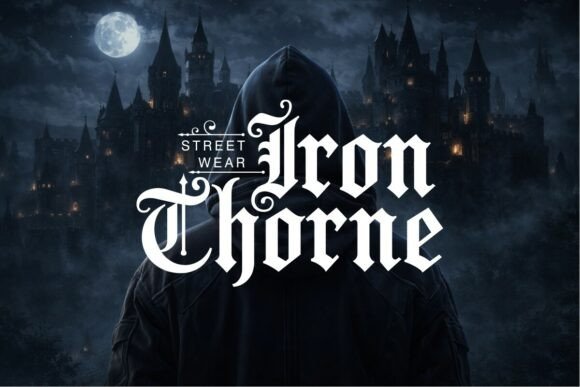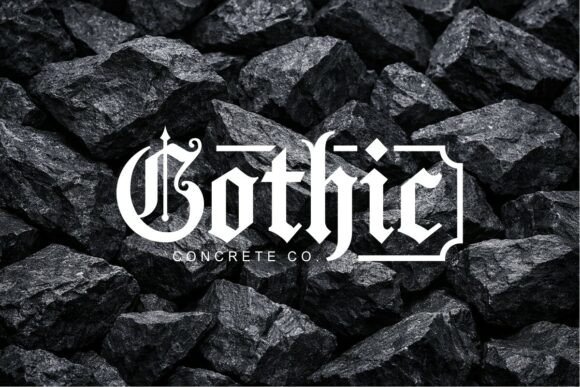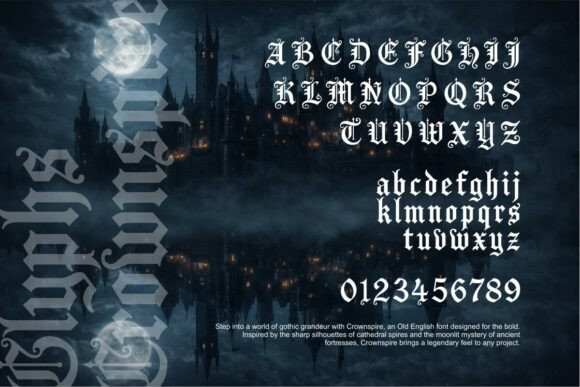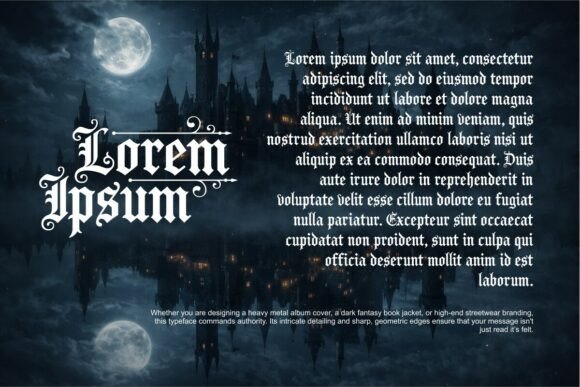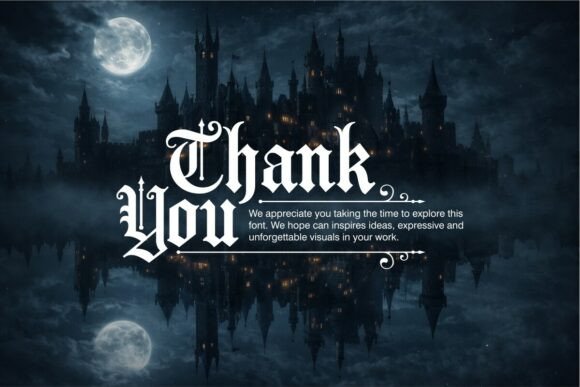
Unleash the Power of Gothic Grandeur with Crownspire Font
In the realm of typography, few fonts evoke the sense of mystery, power, and elegance that Crownspire embodies. This modern reimagining of the classic Old English and Blackletter styles strikes a perfect balance between medieval tradition and sharp, contemporary design. With its high-contrast strokes, aggressive terminal points, and elegant flourishes, Crownspire feels both prestigious and formidable.
A Legendary Feel for Your Projects
Inspired by the sharp silhouettes of cathedral spires and the moonlit mystery of ancient fortresses, Crownspire brings a legendary feel to any project. Whether you are designing a heavy metal album cover, a dark fantasy book jacket, or high-end streetwear branding, this typeface commands authority. Its intricate detailing and sharp, geometric edges ensure that your message isn’t just read – it’s felt.
The Vibe of Gothic Grandeur
Crownspire exudes a sense of Gothic, Heroic, Mysterious, and Timeless style. This font is perfect for designers and crafters who want to evoke a sense of drama, luxury, and power in their work. Imagine the impact of a bold, eye-catching title or logo that seems to leap off the page, drawing the viewer in with its intricate details and sharp lines.
Crownspire is an incredibly versatile font, suitable for a wide range of applications, including:
- Logos: Create a lasting impression with a bold, eye-catching logo that commands respect.
- Gaming Titles: Add a touch of dark fantasy and adventure to your game titles and packaging.
- Apparel Design: Elevate your streetwear or fashion designs with a font that exudes style and sophistication.
- Poster Art: Create striking posters and flyers that grab attention and leave a lasting impression.
Key Features: Sharp Calligraphy and Modernized Blackletter Strokes
So, what sets Crownspire apart from other fonts? Here are some of its key features:
- Sharp Calligraphy: Modernized blackletter strokes for better readability and a more elegant appearance.
- High-Contrast Strokes: Dramatic contrast between thick and thin strokes adds depth and visual interest.
- Aggressive Terminal Points: Bold, sharp lines create a sense of energy and dynamism.
- Elegant Flourishes: Intricate details add a touch of luxury and sophistication.
Why Choose Crownspire?
In a world where typography plays a crucial role in communicating a brand’s message, Crownspire offers a unique combination of style, elegance, and authority. Here are just a few reasons why designers and crafters are drawn to this exceptional font:
- Uniqueness: Stand out from the crowd with a font that’s both distinctive and memorable.
- Versatility: Suitable for a wide range of applications, from logos and titles to posters and apparel.
- Timeless Style: A font that’s both modern and timeless, ensuring your designs remain relevant for years to come.
Crownspire is more than just a font – it’s an experience. With its powerful, gothic grandeur and sharp, modern design, this typeface is sure to leave a lasting impression on your audience. Whether you’re a designer, crafter, or simply someone who appreciates the art of typography, Crownspire is an exceptional choice for anyone looking to add a touch of elegance, sophistication, and authority to their work.